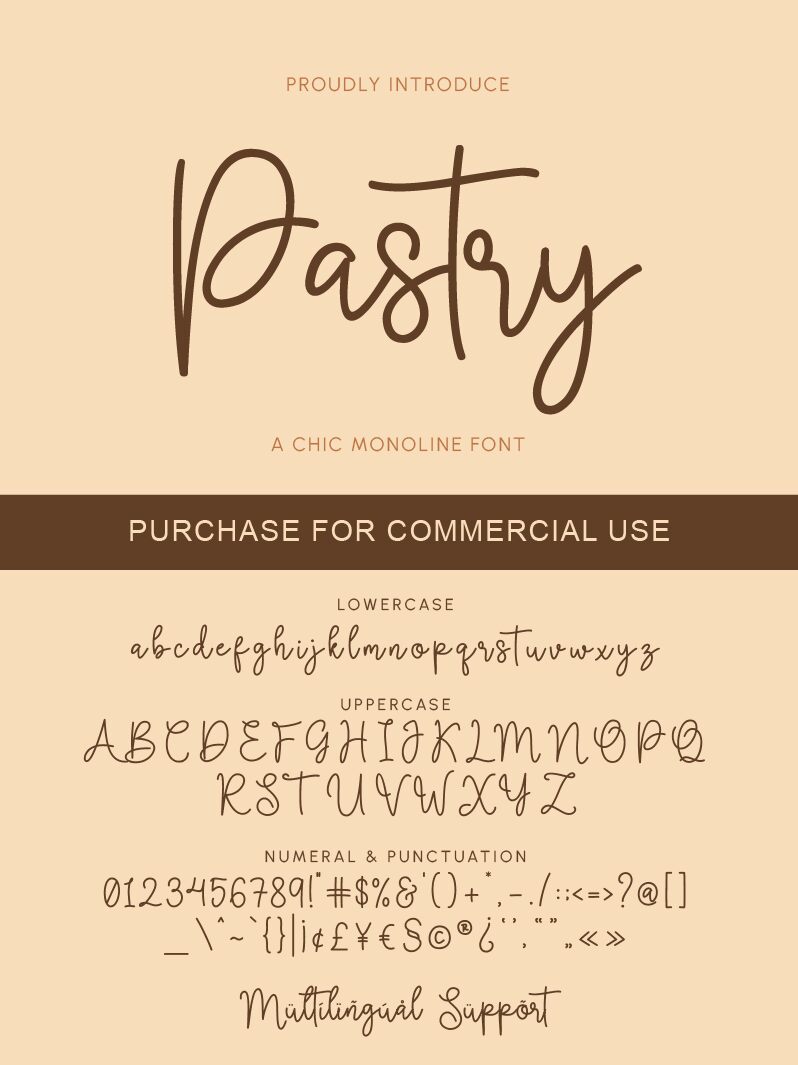
Pastry is a light, handwritten font designed by Nindya Frasela. Its unique style makes it perfect for creative projects like logos and posters, or even more personal projects like wedding invitations and cards.